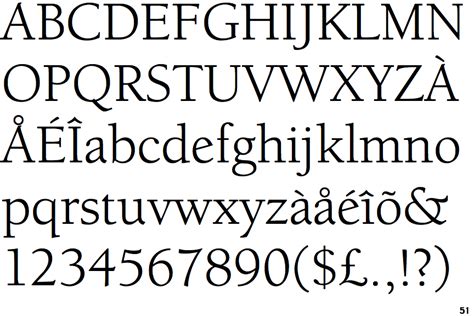
Berkeley Oldstyle Font. It was a private press type skip to main content Itc berkeley oldstyle book italic.
Web what is the itc berkeley old style™ font? Web itc berkeley oldstyle font family. Web download berkeley oldstyle regular font free! Goudy in 1938 for the university of california press in. Goudy in 1938 called university of california old style. Flexibility comes from using one type family that contains all necessary styles. It is one of goudy's most popular serif. It was a private press type for the publishing. Berkeley oldstyle black download font. Web itc berkeley old style is based on a typeface designed by frederic w.
Web other fonts from the berkeley oldstyle family: Web download berkeley oldstyle regular for free. Opentype pro (cff) product id: Berkeley was originally designed under the name of californian by frederic w. Flexibility comes from using one type family that contains all necessary styles. Web itc berkeley old style is based on a typeface designed by frederic w. Itc berkeley oldstyle book italic. Web download berkeley oldstyle regular font free! Web itc berkeley old style is based on a typeface designed by frederic w. Web what is the itc berkeley old style™ font? It was a private press type skip to main content